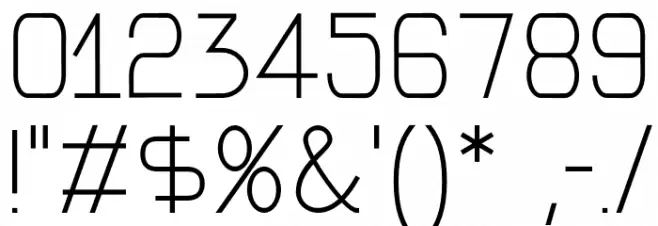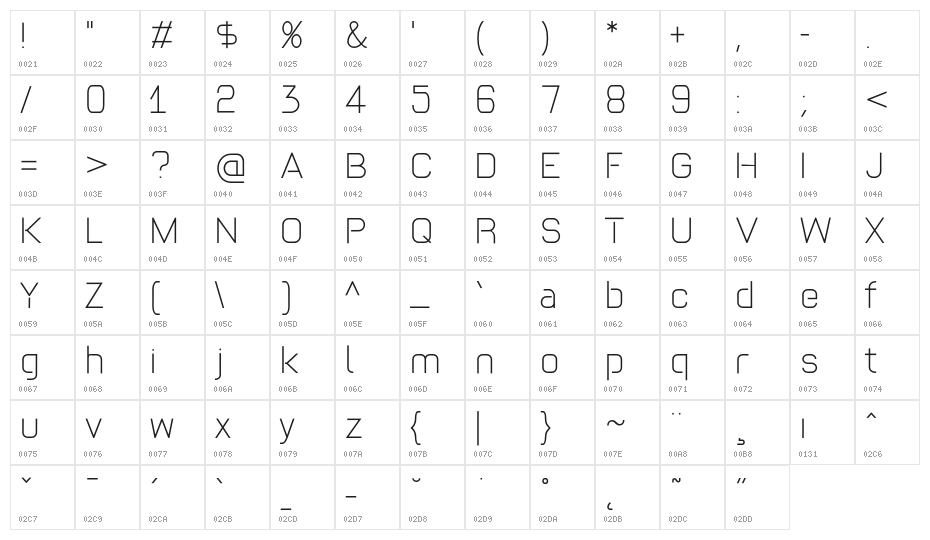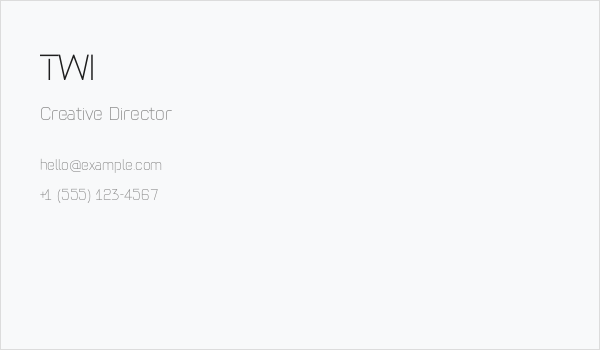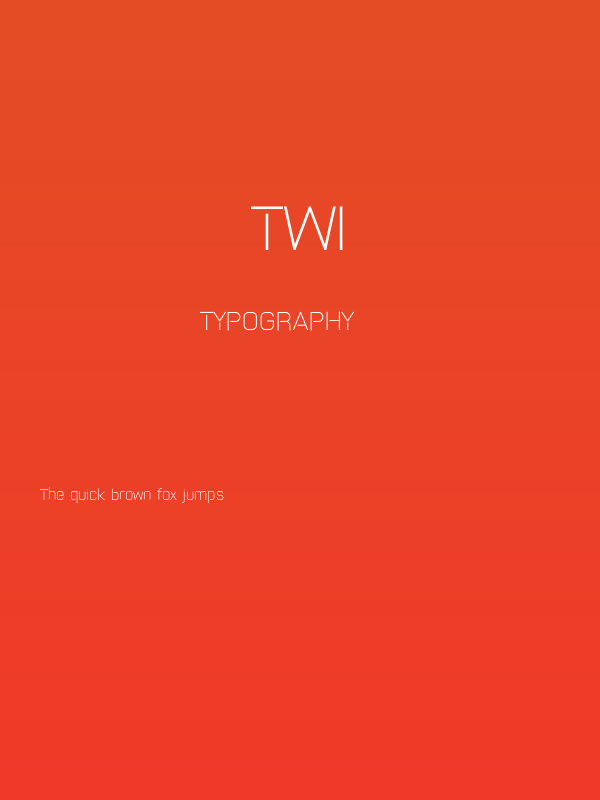
TWI Font
TWI Description
This font features a clean and modern sans-serif design with a geometric structure. The characters are uniform in width, providing a balanced and harmonious appearance. The uppercase and lowercase letters maintain a consistent style, with smooth curves and straight lines that create a sleek and contemporary look. The numerals are clear and easy to read, making them suitable for various applications. The special characters are well-integrated, maintaining the overall aesthetic of the font. This font is versatile and can be used in both digital and print media.
| Proposed Projects | Ideal for branding, web design, advertising, and editorial projects. |